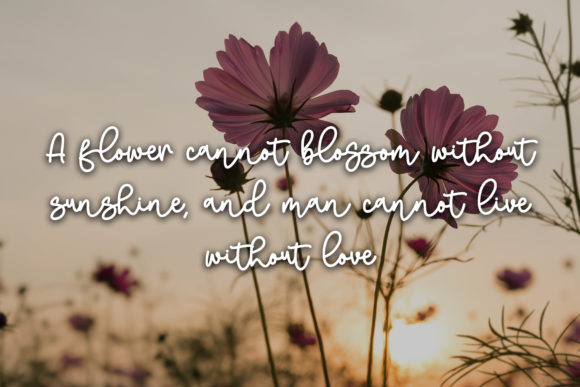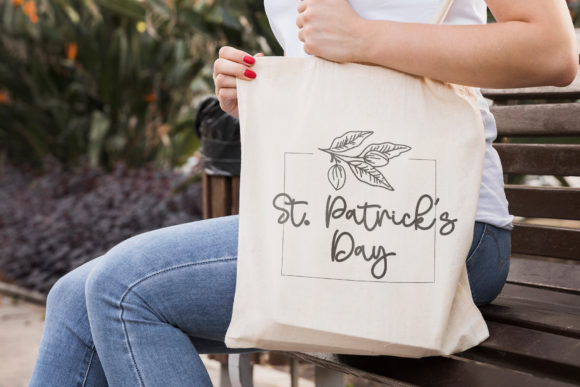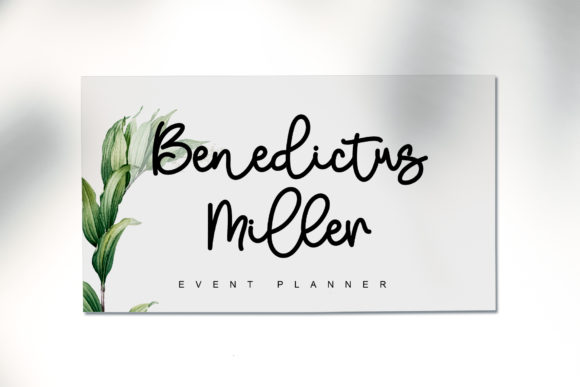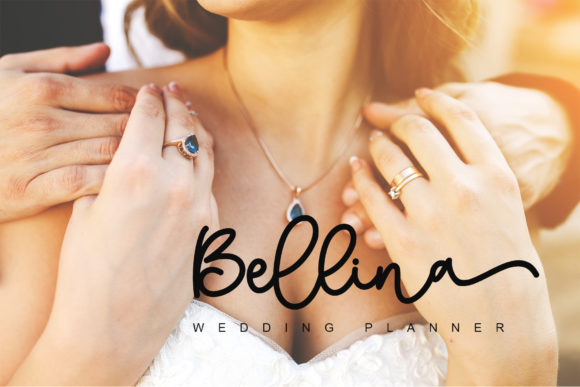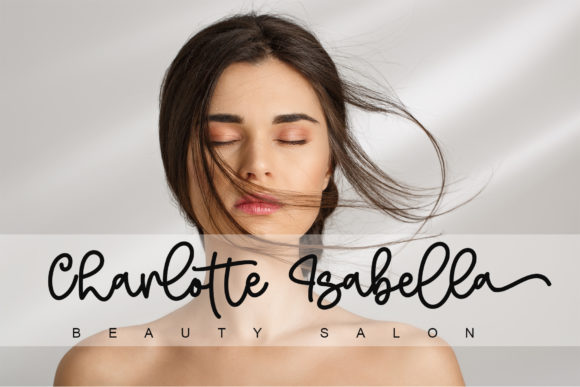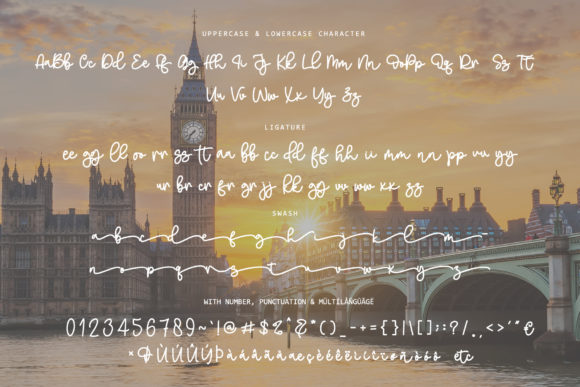
Introduction to Melukis Senja Font Font
Fonts play a crucial role in design, and the Melukis Senja Font font is a typeface that brings both character and versatility to any project. Whether you’re working on a branding project, a website, or a print design, the Melukis Senja Font font offers a unique style that can elevate your work.
Melukis Senja is a simple script font.
Melukis Senja is perfect for branding projects, logos, wedding designs, social media posts, advertisements, product packaging, product designs, photography, watermarks, invitations, stationery and any projects that need handwriting style This font is PUA encoded which means you can access all of the amazing glyphs and swashes with ease.
The Melukis Senja Font font is more than just a typeface – it’s a design tool that helps you communicate your message with style and clarity. Its unique character set and versatile design make it suitable for a wide range of applications, from elegant invitations to bold headlines.
With its carefully crafted letterforms and balanced proportions, the Melukis Senja Font font ensures readability and visual appeal across all mediums.
The Melukis Senja Font font stands out with its unique design, exceptional readability, and versatility across various design applications.